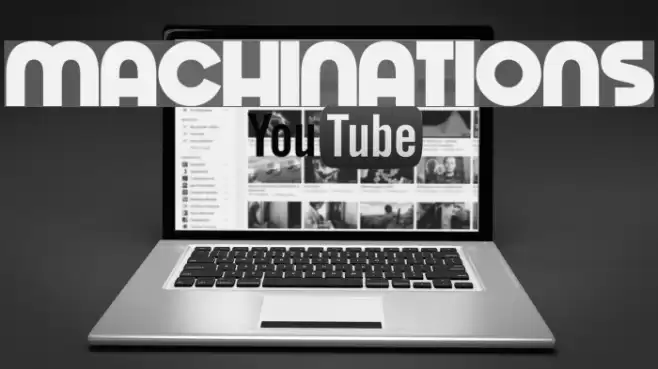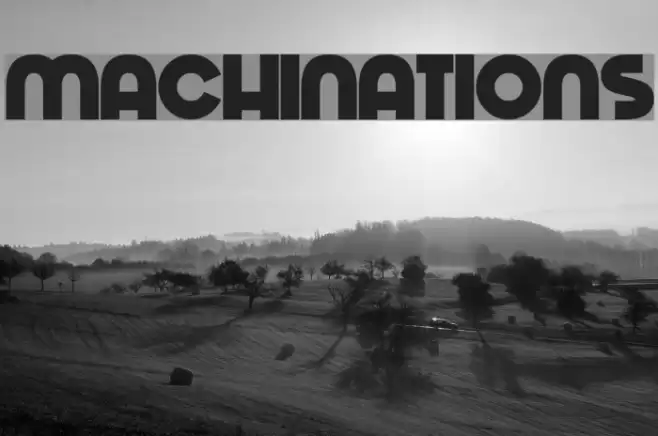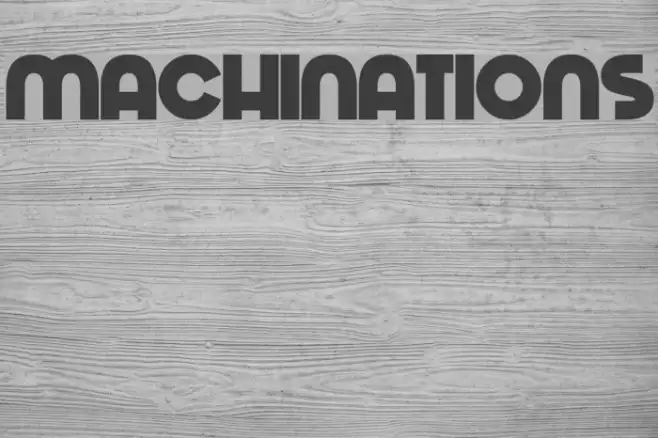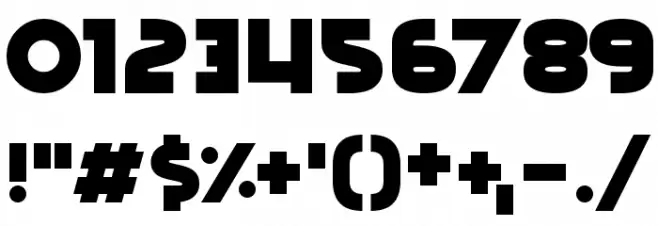
Machinations Font
Machinations Description
This font features a bold and geometric style with strong, clean lines and a modern aesthetic. The characters are uniformly thick, creating a sense of solidity and strength. The uppercase and lowercase letters maintain a consistent height, contributing to a cohesive and balanced appearance. The numerals and special characters are designed with the same boldness, ensuring uniformity across all glyphs. The overall design is sleek and contemporary, making it suitable for impactful visual statements.
A bold, geometric font with a modern and cohesive design from Uncategorized fonts.
- Proposed Projects: Ideal for branding, posters, headlines, and any project requiring a strong visual impact.